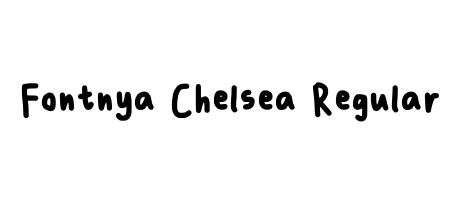
Fontnya Chelsea
Fontnya Chelsea Regular boasts a playful, hand-drawn aesthetic. Its rounded letters and slightly uneven strokes give it a charming, informal feel, perfect for titles or headings needing a touch of whimsy. The overall impression is friendly and approachable, yet still legible and stylish.